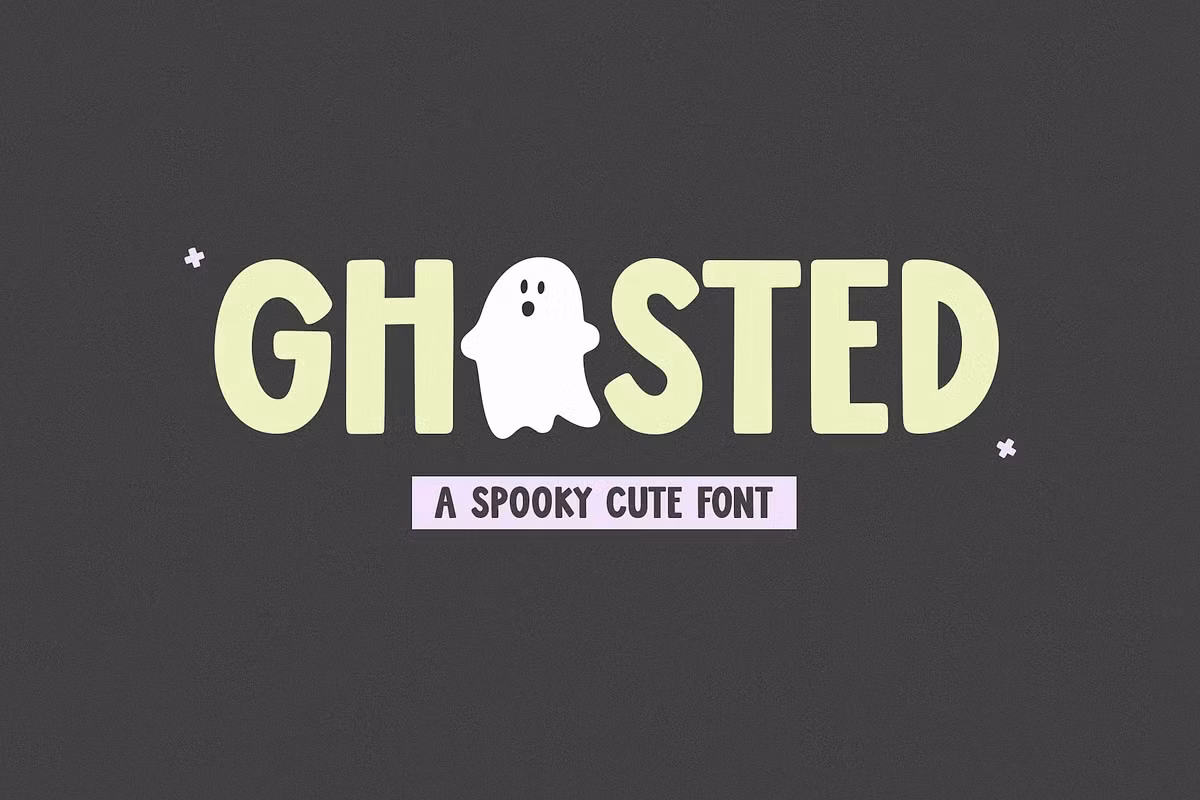
Ghosted | Cute Ghost Font Free Download
Ghosted | Cute Ghost Font Free Download is a fun, whimsical typeface that brings the playful side of Halloween and spooky designs to life. With its cute, rounded letterforms and charming ghostly details, this font is perfect for Halloween invitations, party decorations, children’s books, and playful branding.
The font features adorable ghost illustrations integrated into the design, adding a touch of spookiness without being too scary. Whether you're working on a Halloween-themed project or just looking for a cute, playful typeface, Ghosted adds a lighthearted, fun twist to your typography.